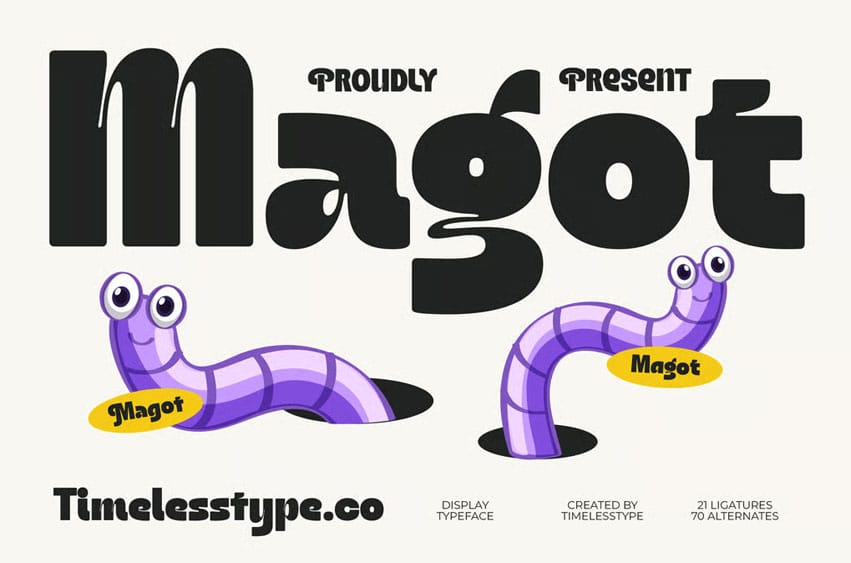
Magot Font expressive rhythm that instantly adds personality to any layout. Crafted as a fun, eye-catching title font, Magot is perfect for kids’ projects, educational visuals, product packaging, logos, mascots, and playful brand identities.
With 21 lively ligatures and 70 whimsical alternates, this typeface gives designers the flexibility to create dynamic, character-driven typography that feels fresh, friendly, and full of charm. Magot brings a joyful, illustrated vibe that stands out effortlessly in both digital and print designs.